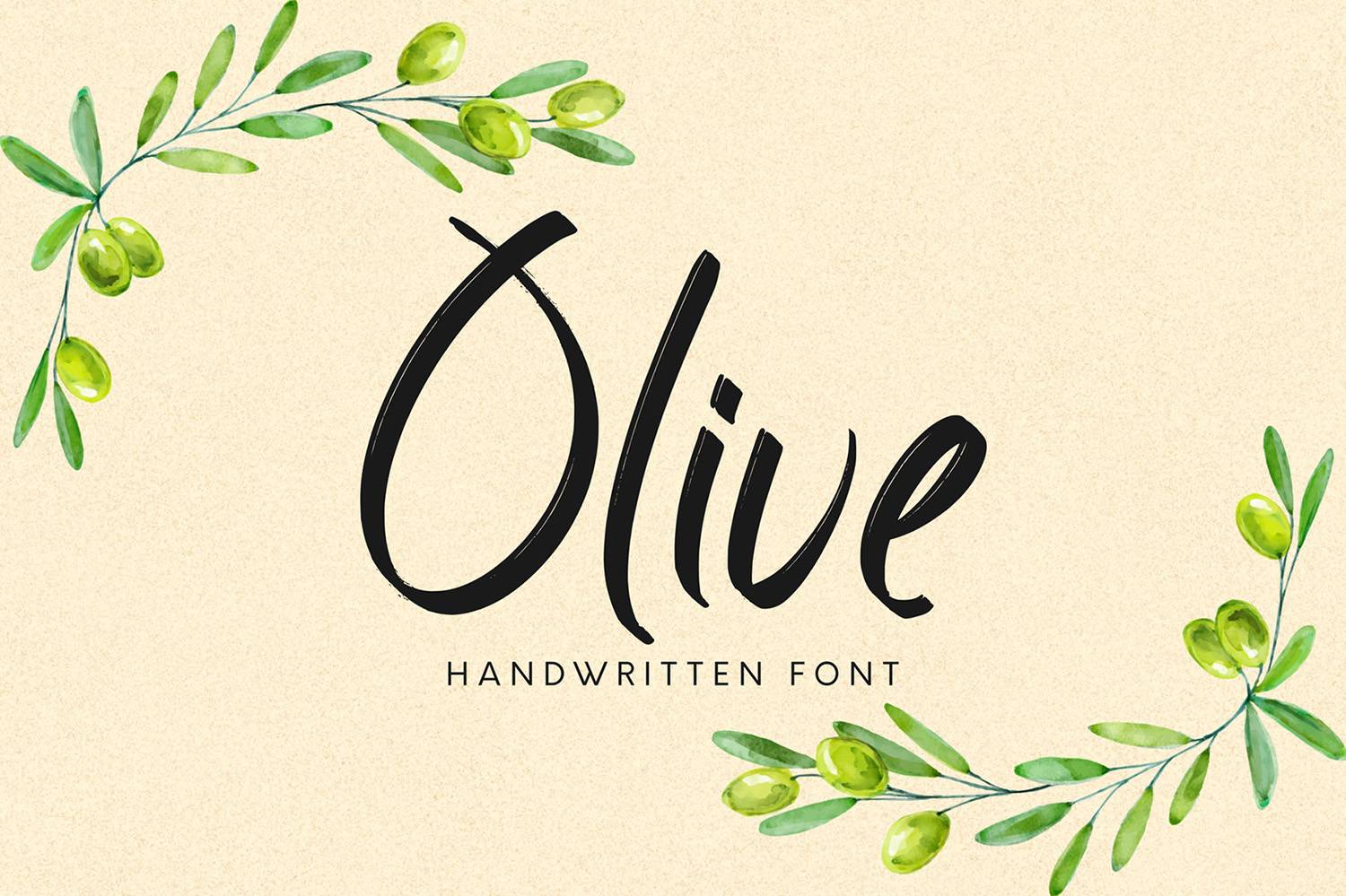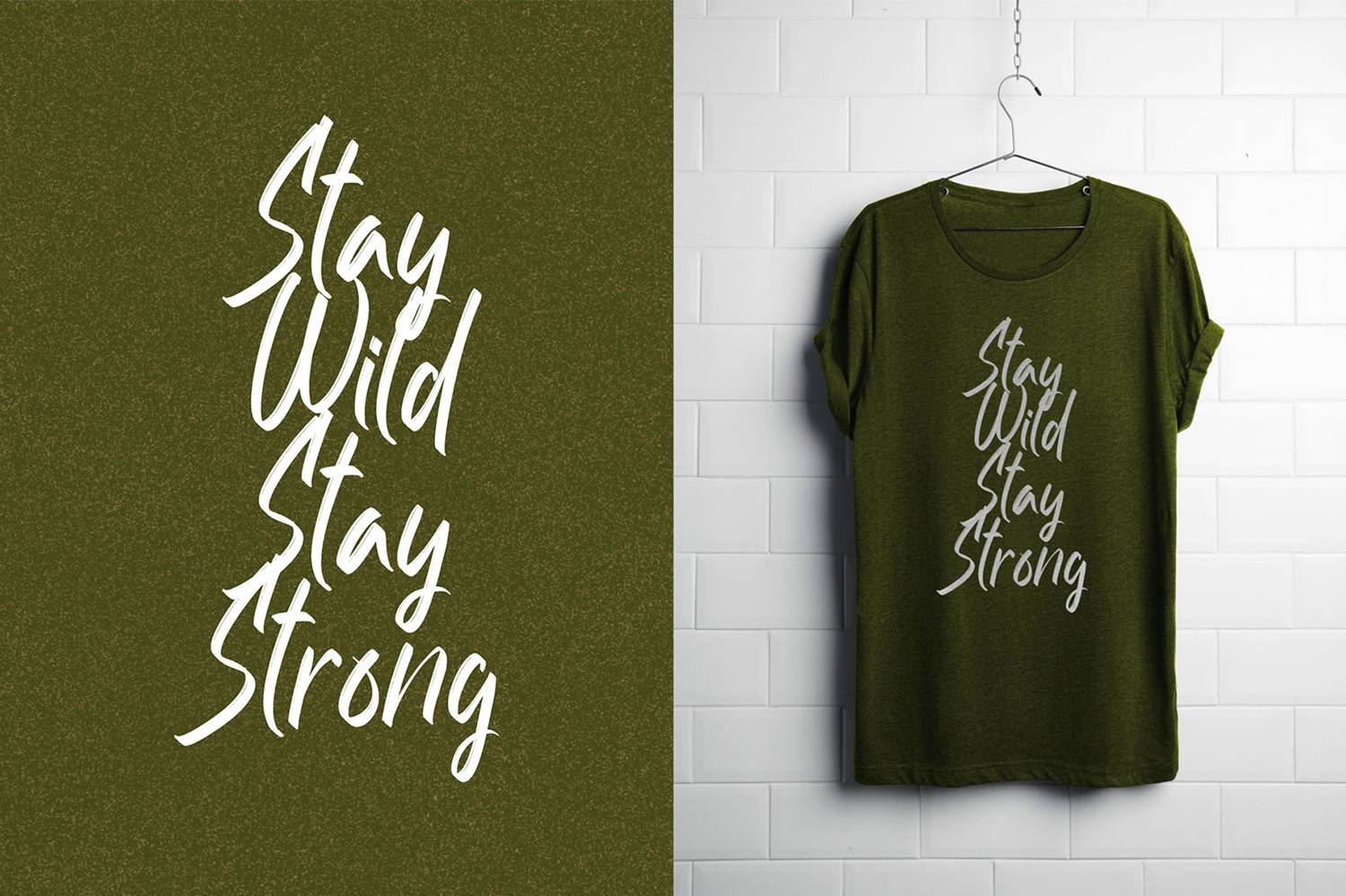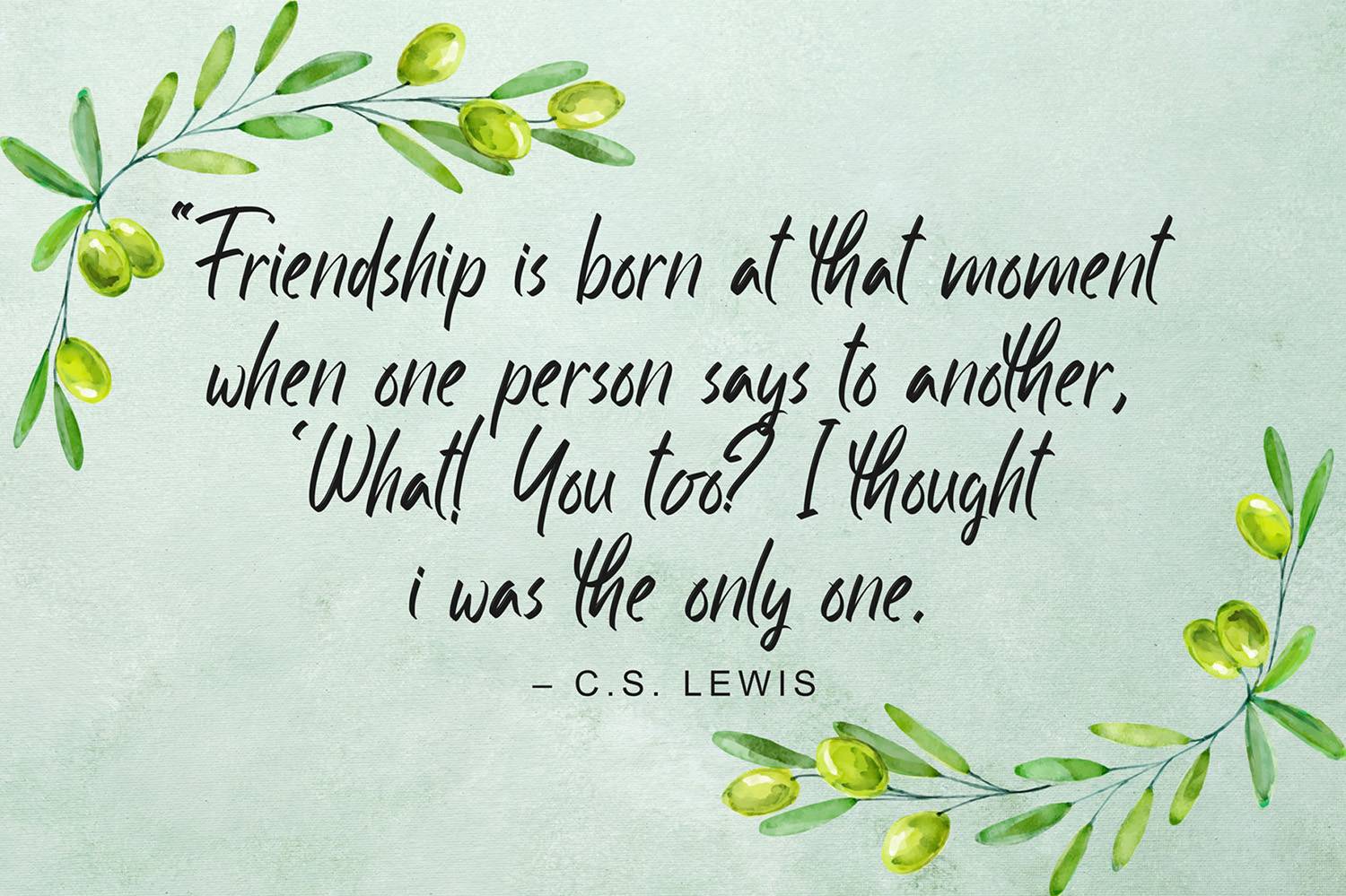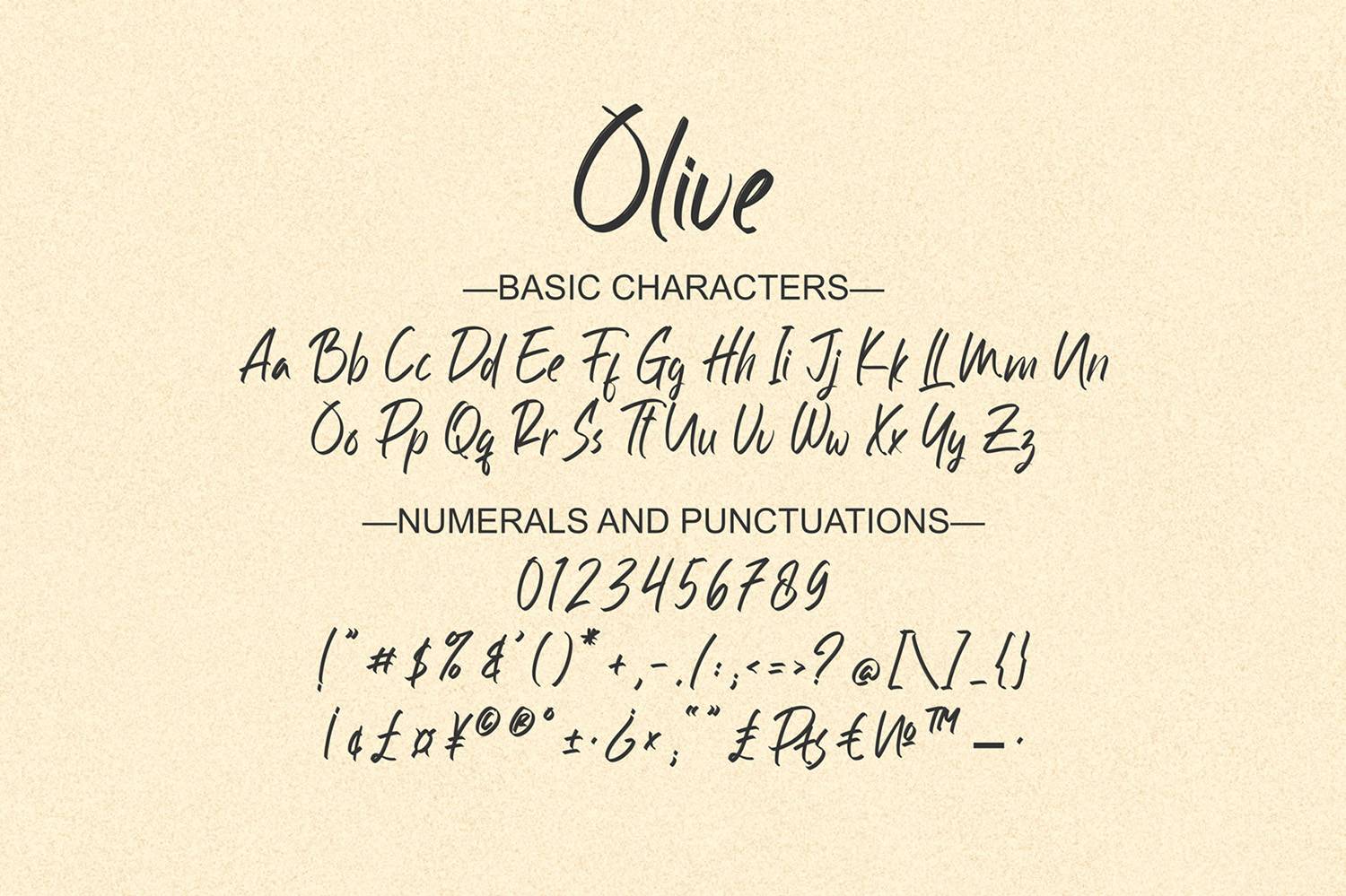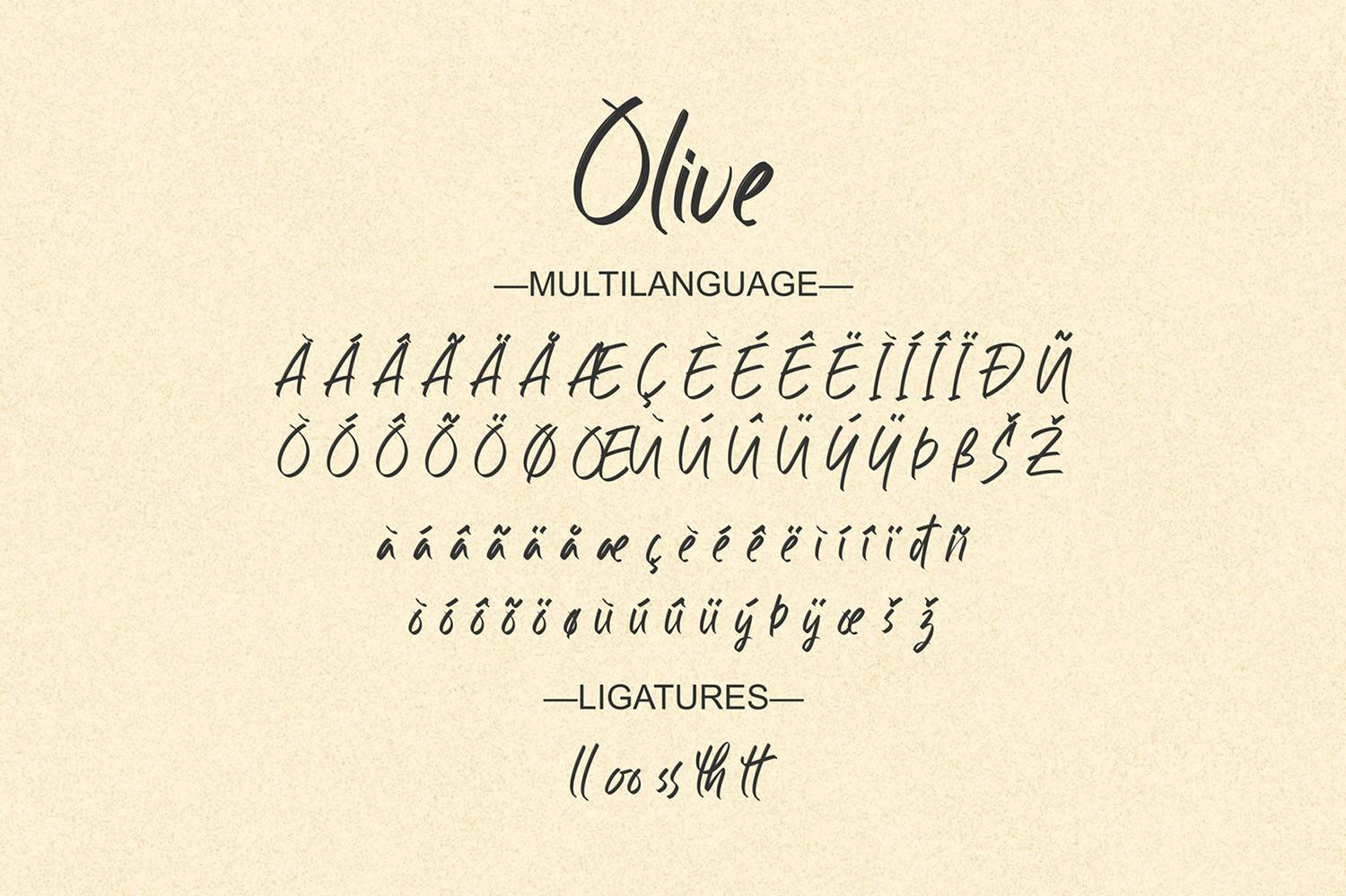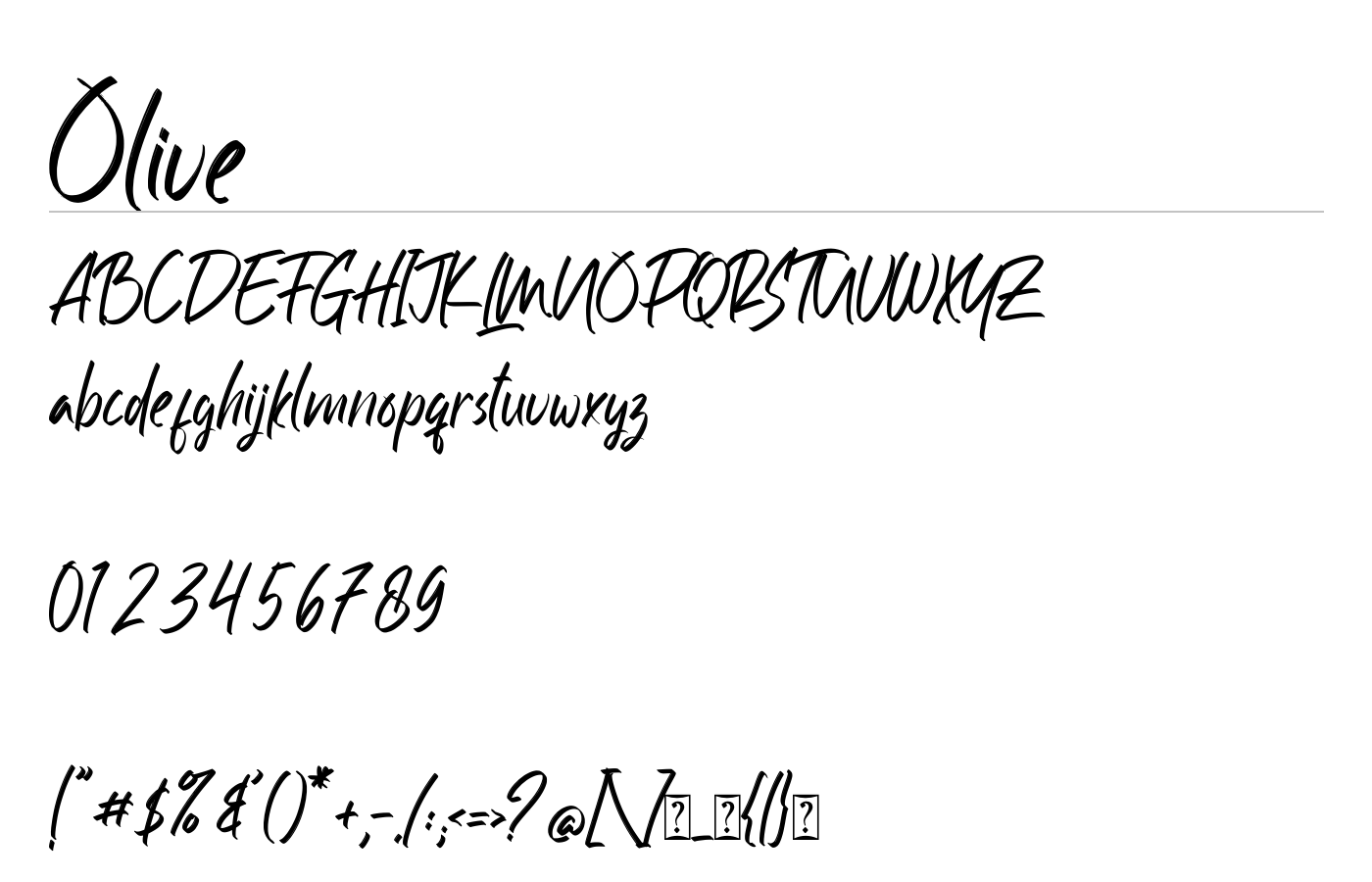
Olive is a lively and elegant script font with a casual, handwritten feel, featuring smooth, slightly condensed letterforms and fluid strokes that suggest natural penmanship. Its slender and slightly irregular characters give it a personal, artistic touch, making it ideal for creative projects, branding, invitations, and headlines where a warm, approachable style is desired. This font works well in contexts that seek to convey friendliness and individuality while maintaining readability and charm.
Olive Font
About Olive Font
| Font family | Olive Font |
| Designer | Omotu 2020 |